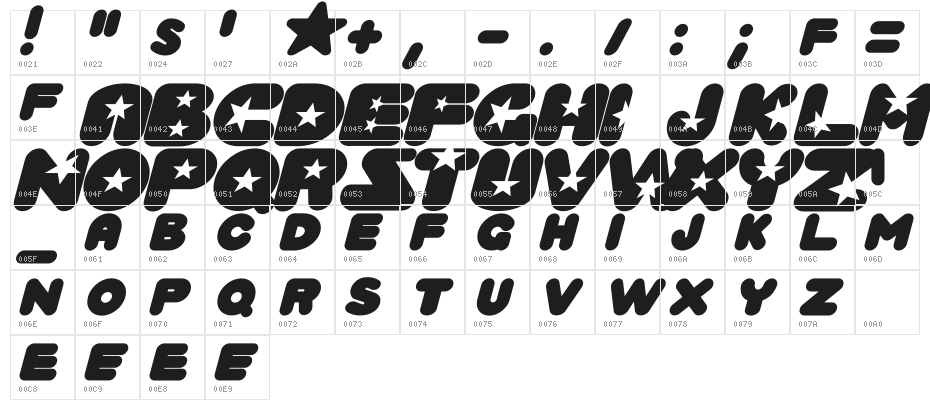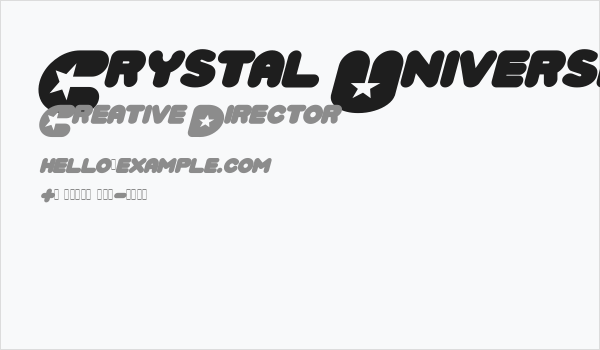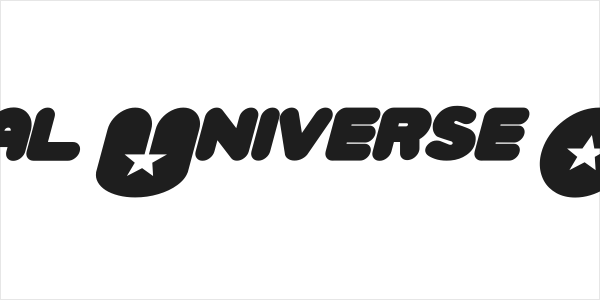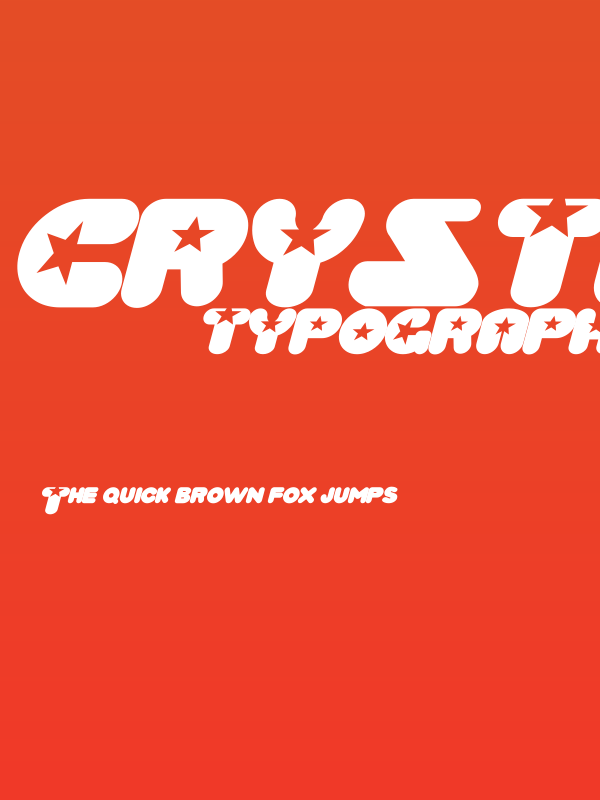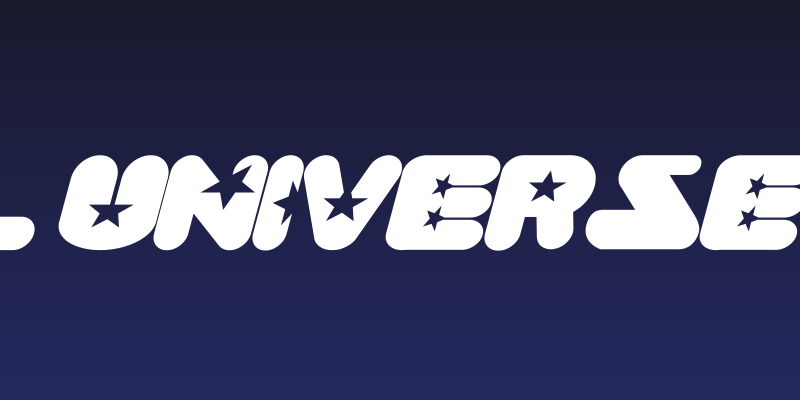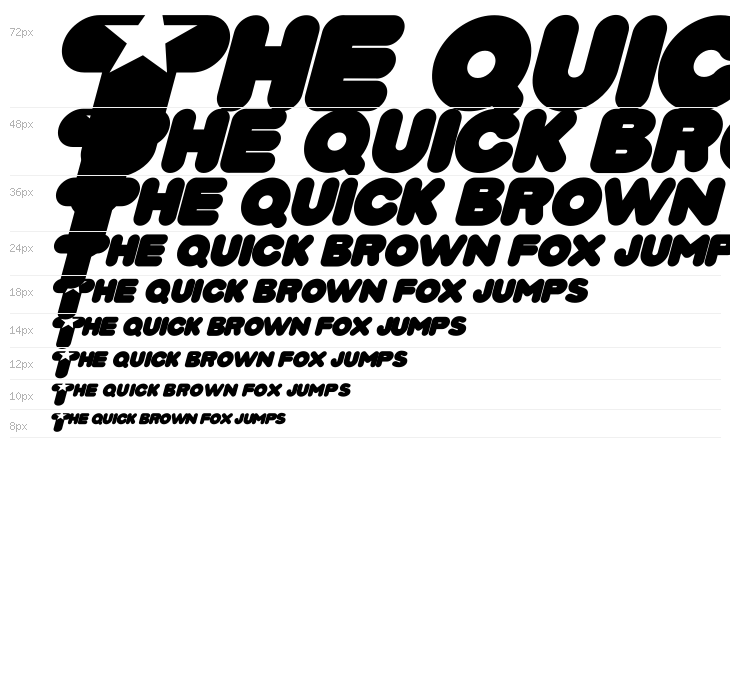
Crystal Universe Oblique Font
Crystal Universe Oblique Description
This font features a bold and playful design with a unique star motif embedded within each character, creating a dynamic and eye-catching effect. The letters are rounded and thick, giving them a substantial presence. The oblique style adds a sense of motion and modernity, making it ideal for creative and energetic projects. The uppercase and lowercase letters maintain a consistent style, with the star elements providing a whimsical touch. The numbers and special characters are equally bold, ensuring uniformity across all text elements.
| Proposed Projects | Ideal for children's books, party invitations, posters, and branding for playful or cosmic-themed products. |